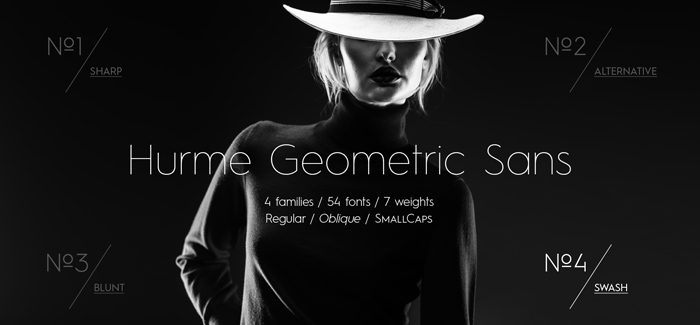
Hurme Geometric Sans No4 font
Hurme Geometric Sans No4 font is the most flamboyant of the Hurme Geometric Sans series.
Uppercase features simple geometric swash alternates. Lowercase features curved tails, while simpler forms are still available as alternatives.
Hurme Geometric Sans includes seven weights with true Small Caps, obliques and swash alternates. Alternate characters and other Opentype features make for a versatile family that can be adjusted for specific needs. Hurme Geometric Sans is a series of font families all with distinctive qualities and features but share the same basic construction and proportions.
Designers: Toni Hurme
Publisher: Hurme Design